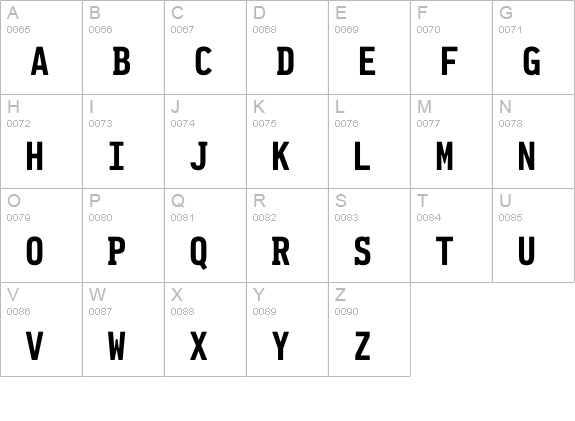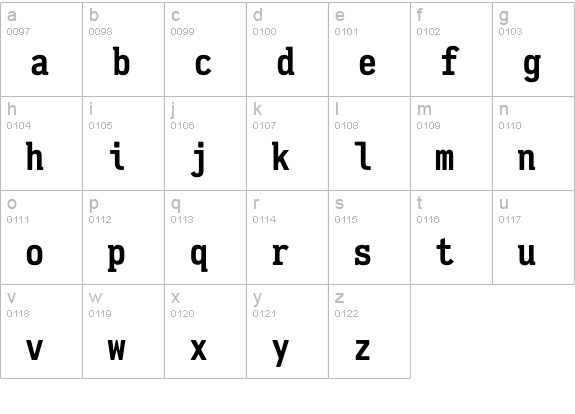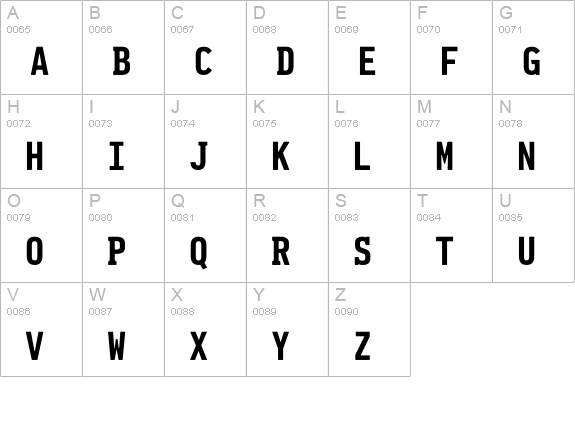
Pennsylvania Bold is a strong, high-contrast variant in the Pennsylvania typeface family \xE2\x80\x94 well suited to headlines, attention-grabbing titles, and strong calls-to-action.
Pennsylvania Bold is a striking and powerful font that exudes confidence and strength. With its bold and commanding presence, this font is perfect for making a statement and grabbing attention. The thick, strong lines of Pennsylvania Bold convey a sense of reliability and stability, making it an excellent choice for headlines, logos, and branding materials. One of the standout features of Pennsylvania Bold is its versatility. It seamlessly blends modern style with a classic appeal, making it suitable for a wide range of design projects. Whether you're creating a contemporary website or a traditional print advertisement, this font will effortlessly elevate your design and give it a touch of elegance. But what sets Pennsylvania Bold apart from other fonts is that it is free. Yes, you read that right - this exceptional font is freely available to download at FontsMarket.com. Now you can access this high-quality font without any cost, making it a valuable asset for both personal and commercial projects. The attention to detail in Pennsylvania Bold is truly remarkable. Each letter has been meticulously crafted, ensuring that every curve, line, and stroke is perfectly balanced. This attention to detail not only enhances the overall aesthetic appeal but also improves legibility, ensuring that your message is conveyed with clarity and impact. Whether you're designing a poster, a book cover, or a social media graphic, Pennsylvania Bold will undoubtedly leave a lasting impression on your audience. Its bold and commanding presence combined with its timeless elegance makes it a font that is both memorable and captivating. So why wait? Don't miss the opportunity to download Pennsylvania Bold for free at FontsMarket.com and unlock the potential of this extraordinary font. Take your designs to new heights with Pennsylvania Bold and let your creativity soar.